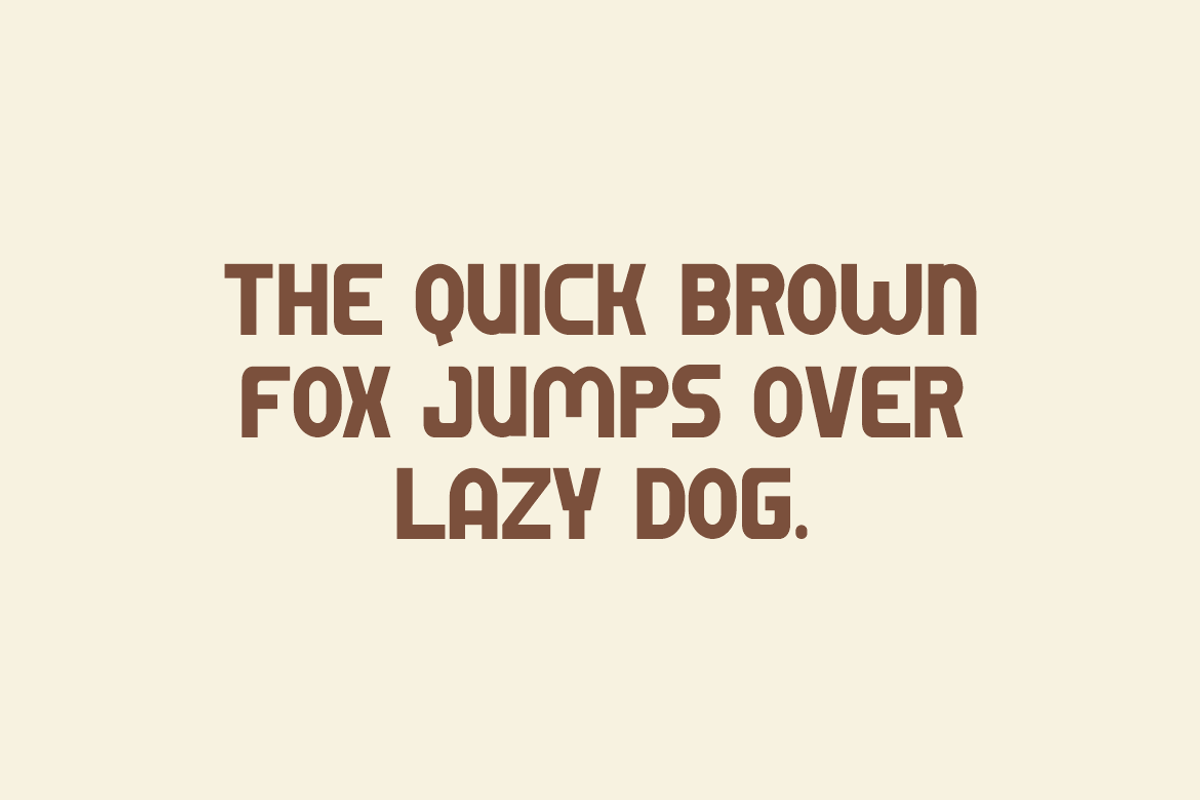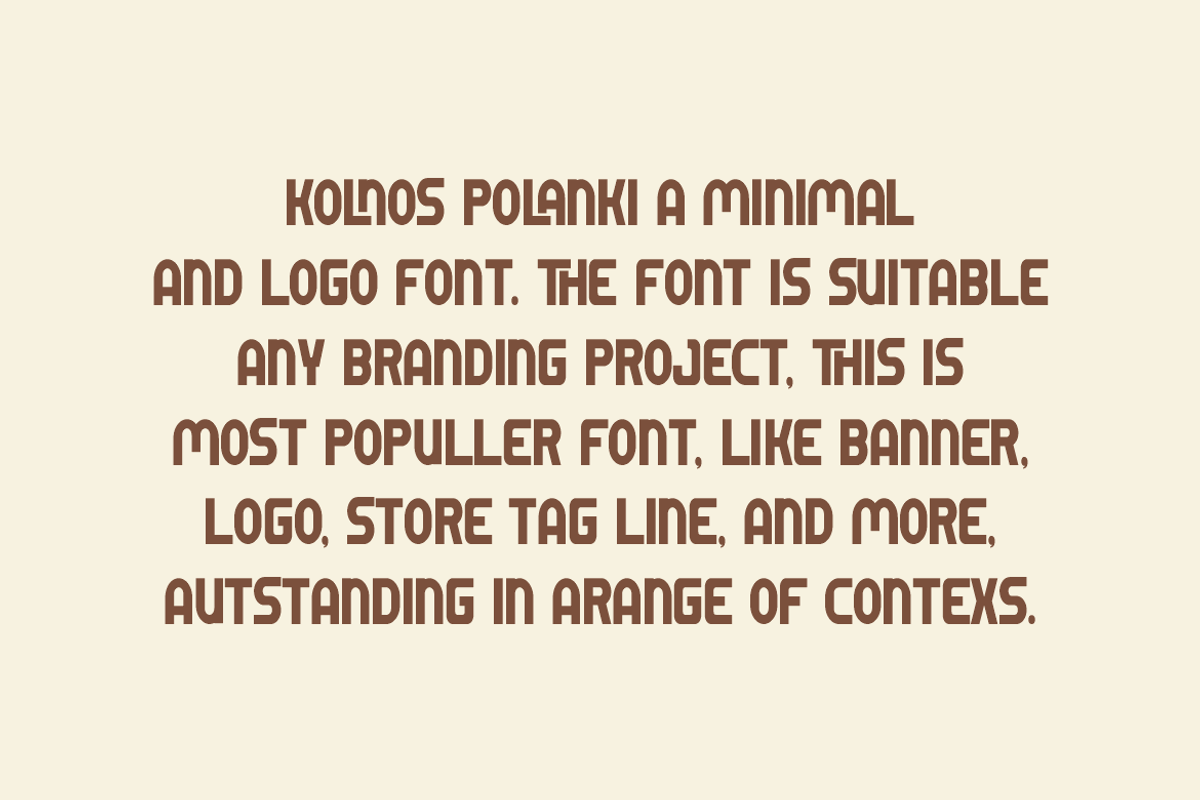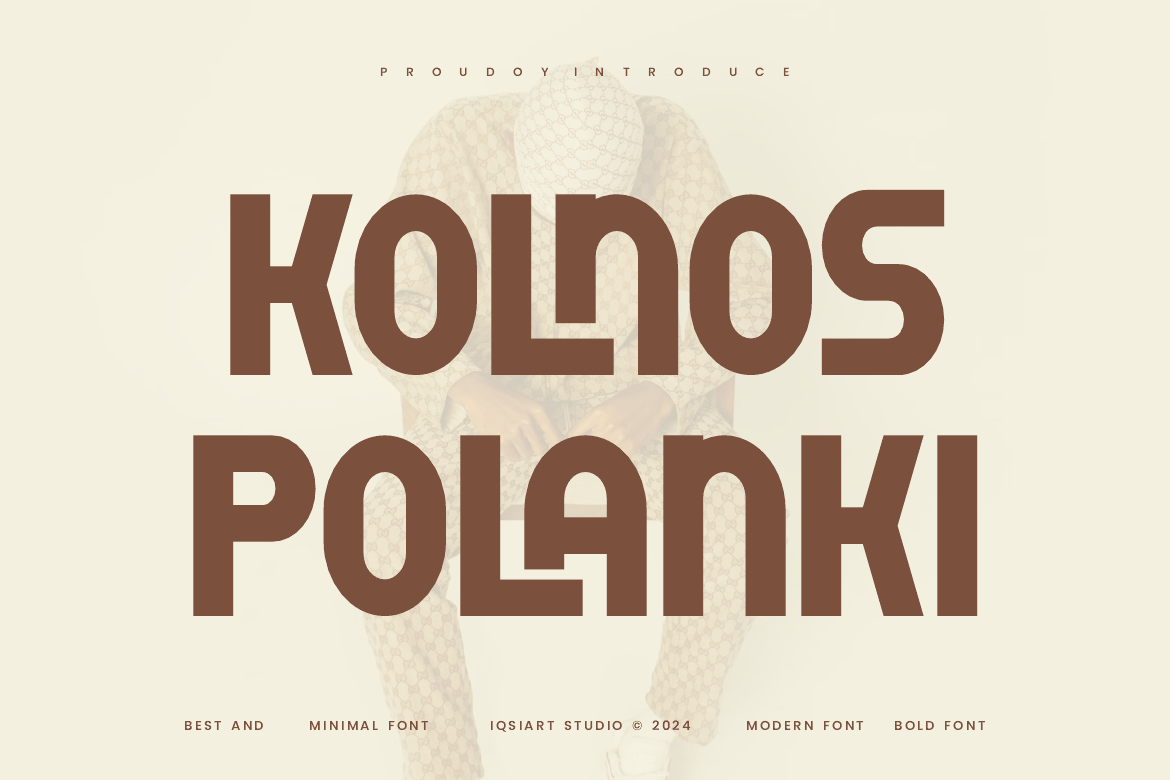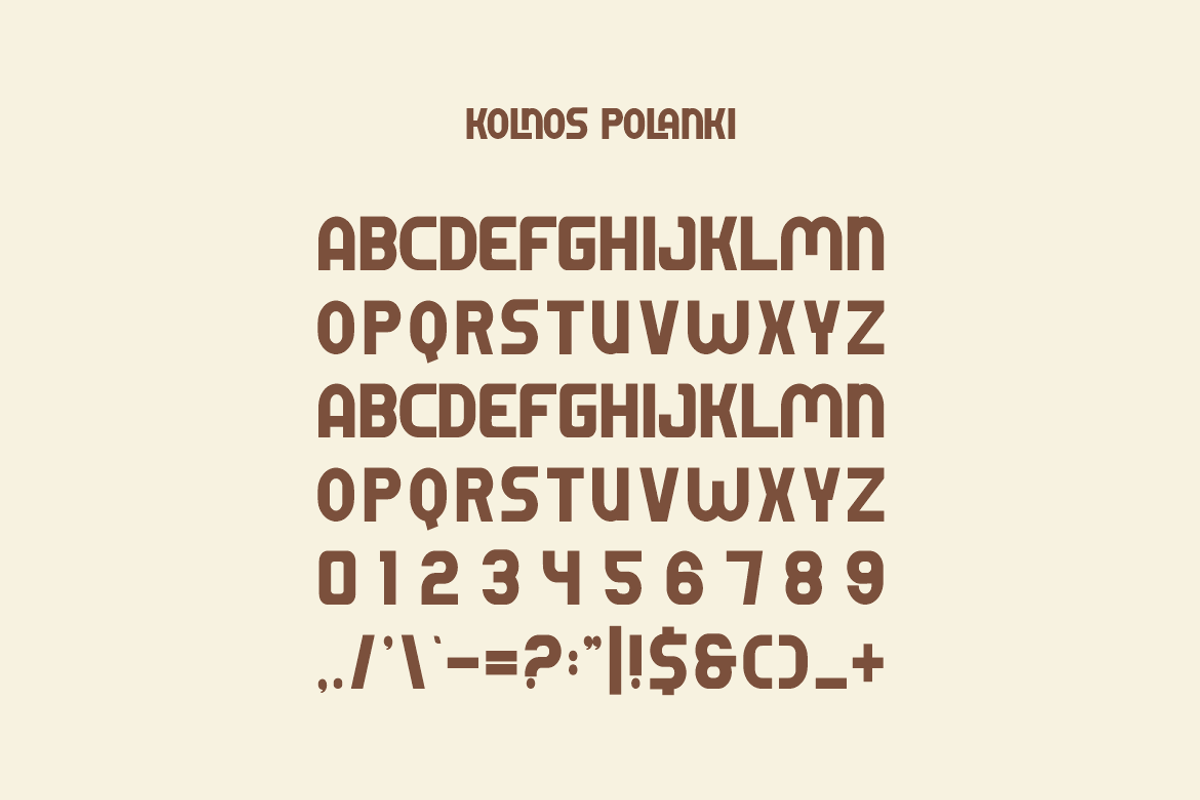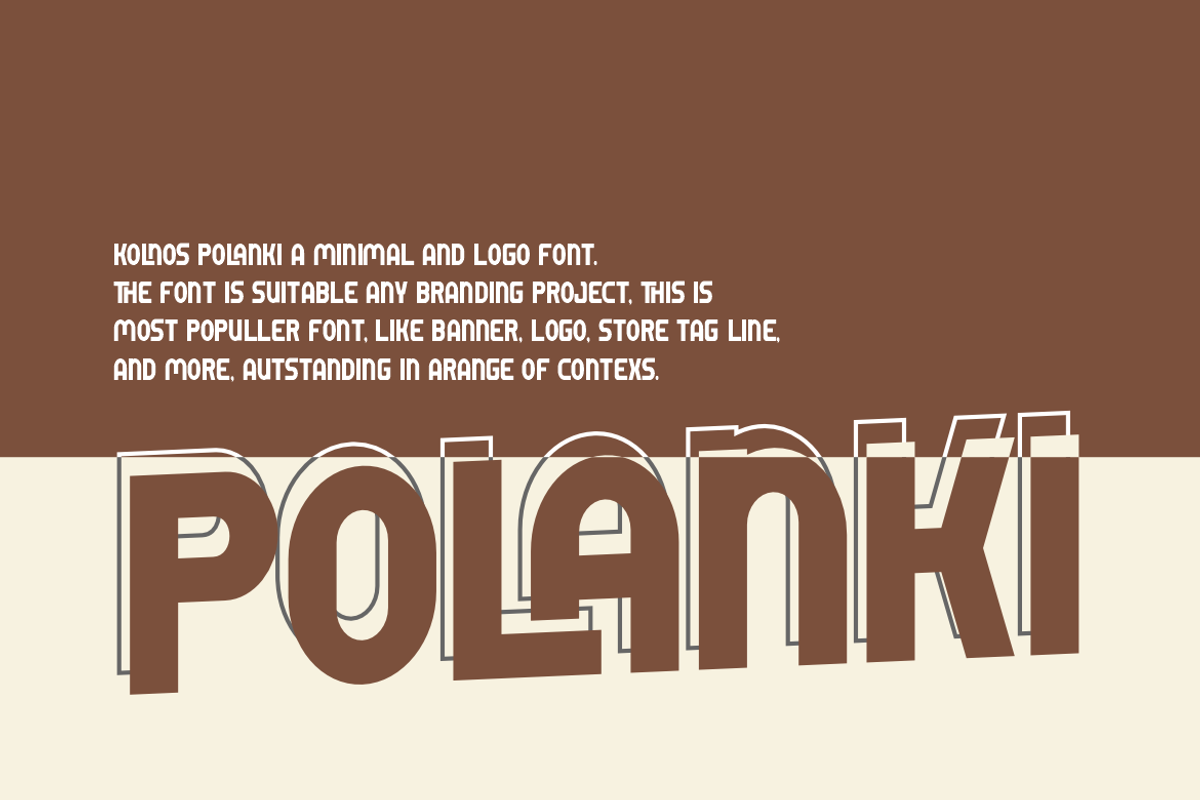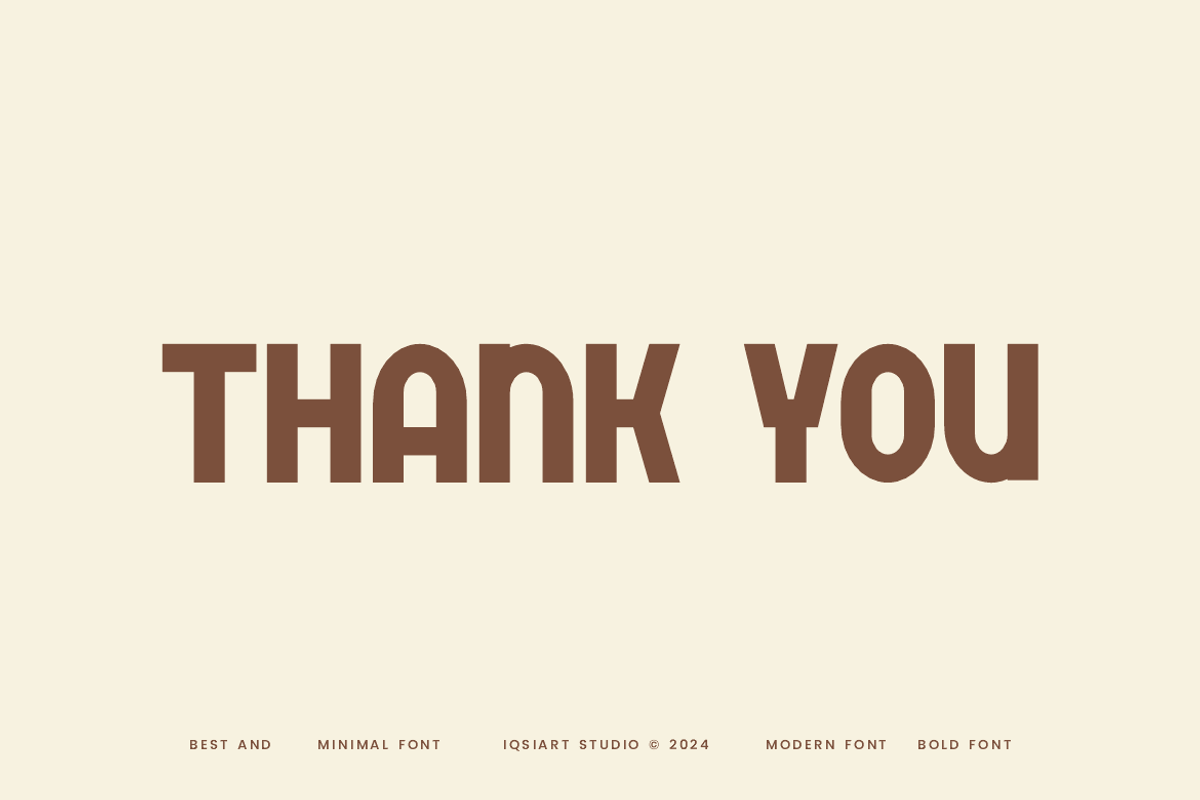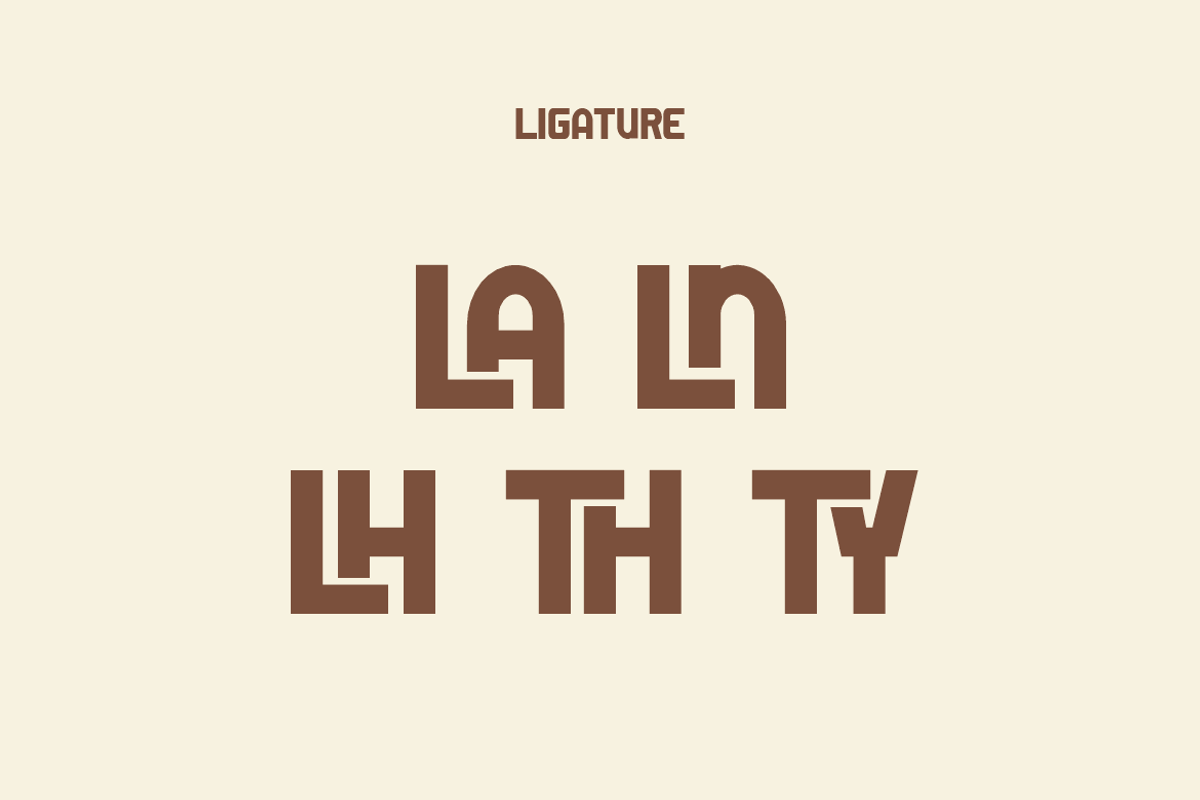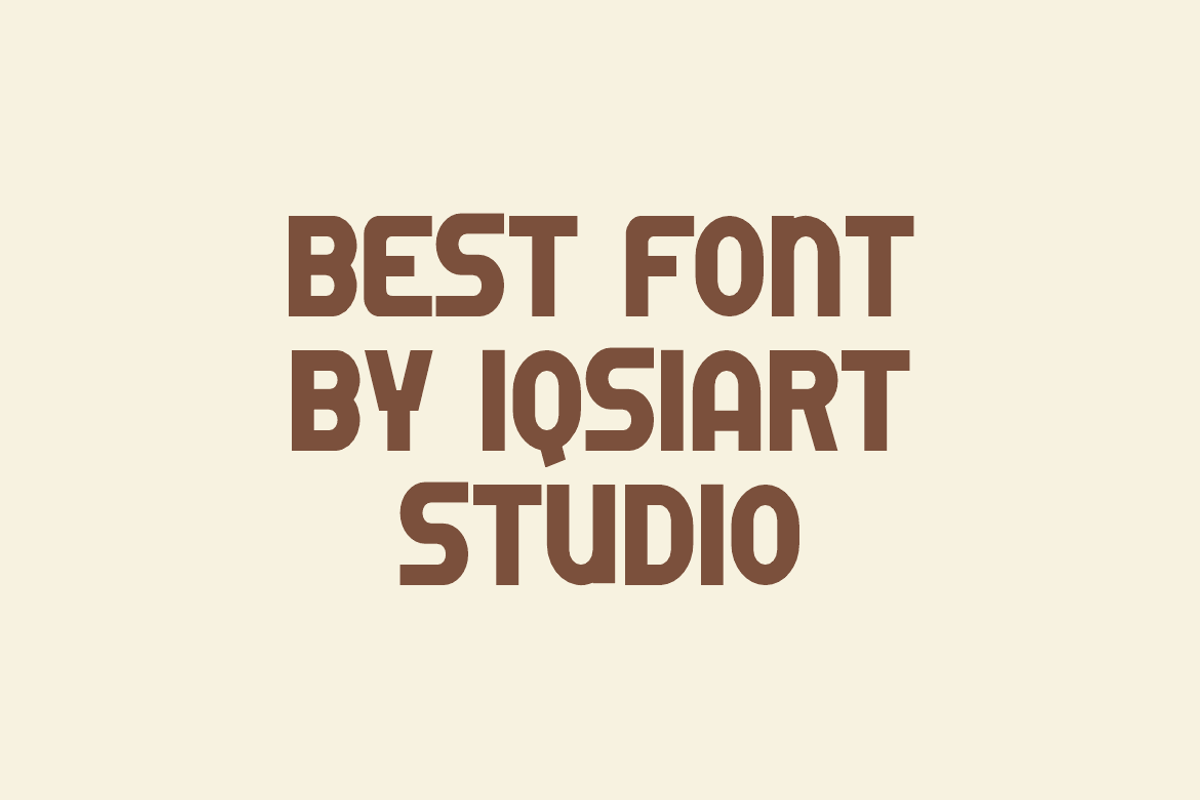
Kolnos Polanki - Modern Sans Font
Kolnos Polanki Font is a best and authentic display font. This font can be used for your various needs. We provide various themes and font styles. visit our profile to get a wide variety of themes and different font styles you need.